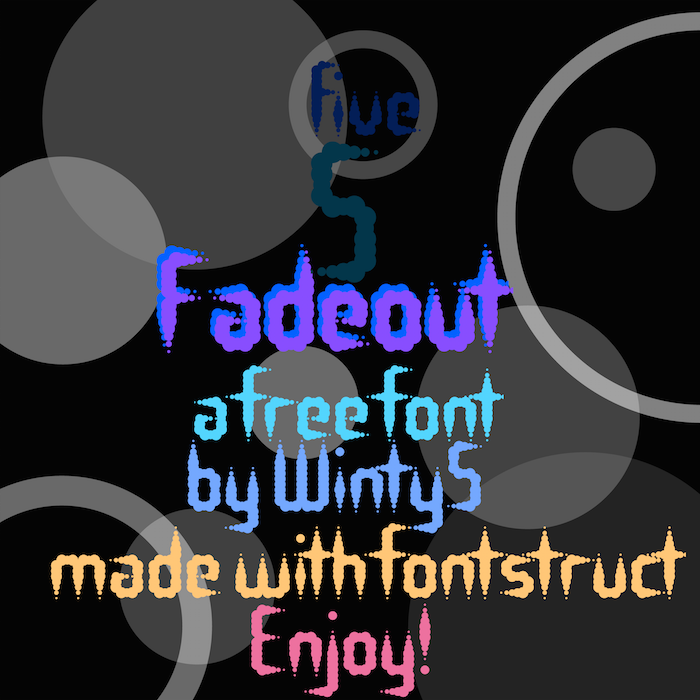
Accents and other stuff coming soon.
Thanks a lot! The inspiration came from one of those little animated thingeys on the FontStruct homepage. A sample is in the woks as well.
Here's the sample. I'll make one for 5Blockout later.